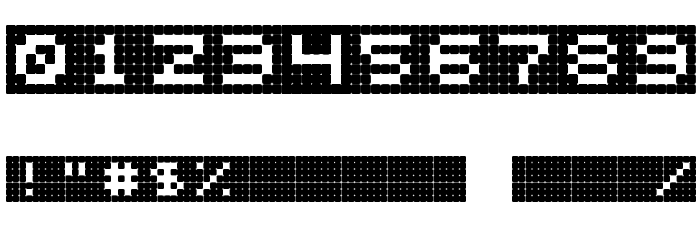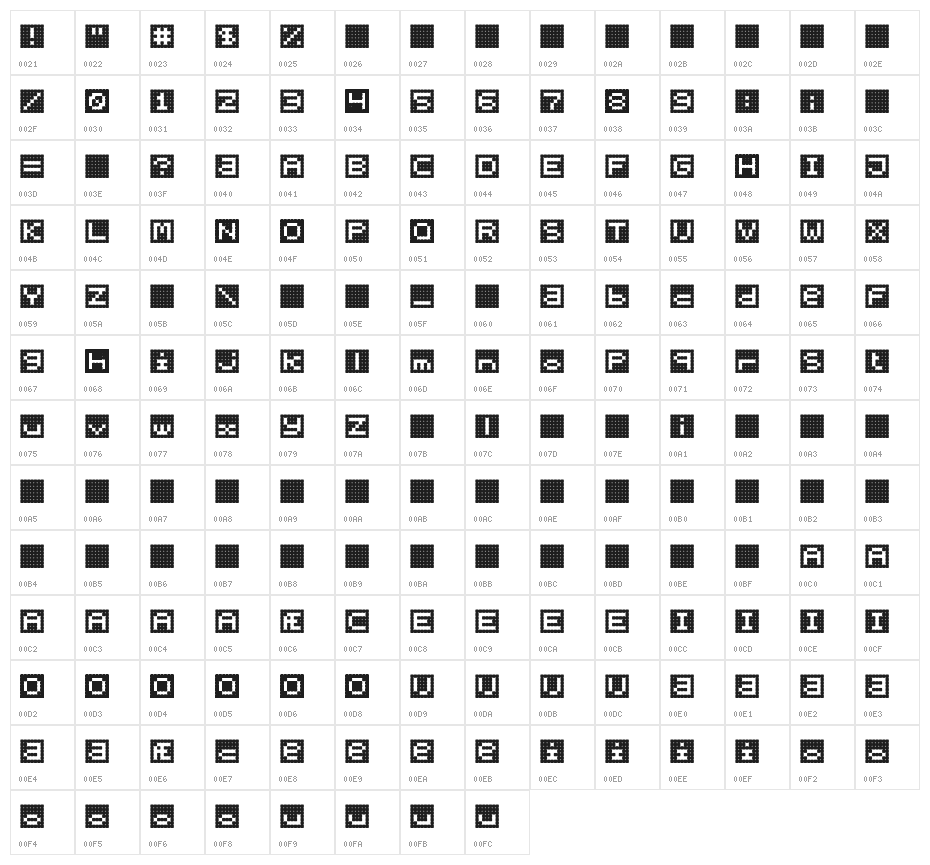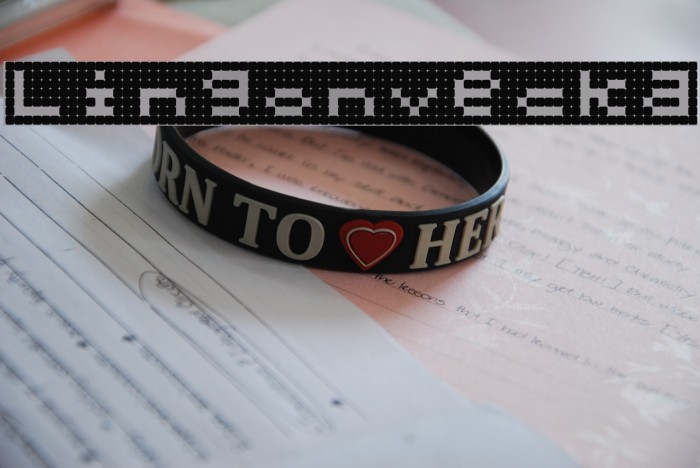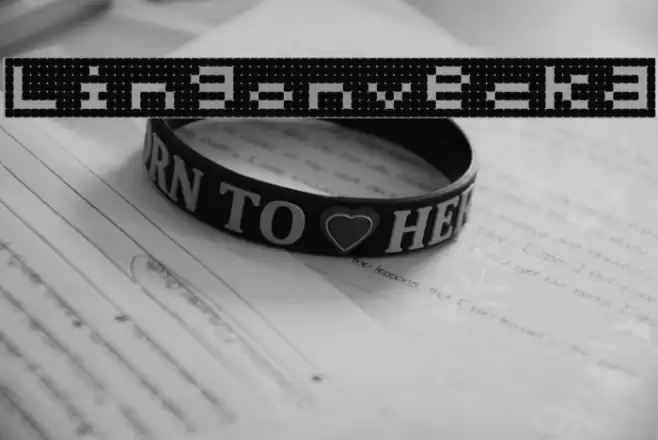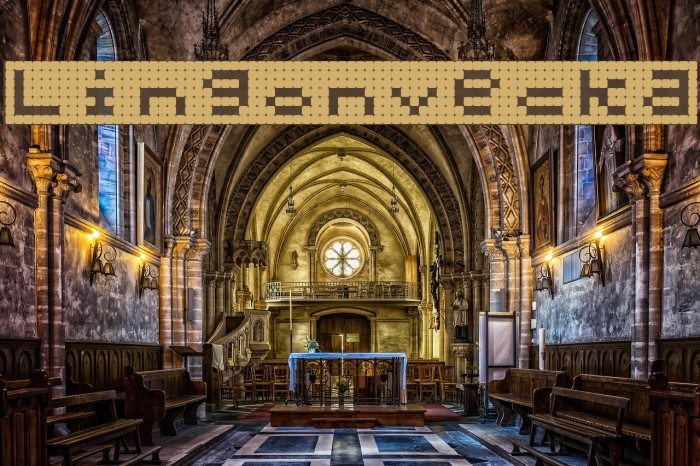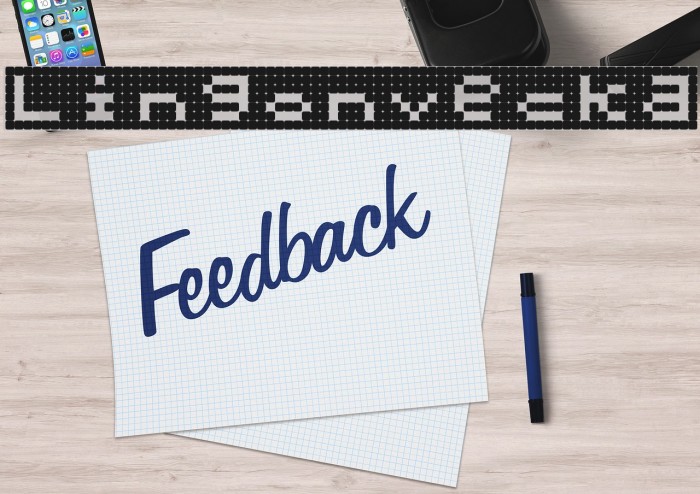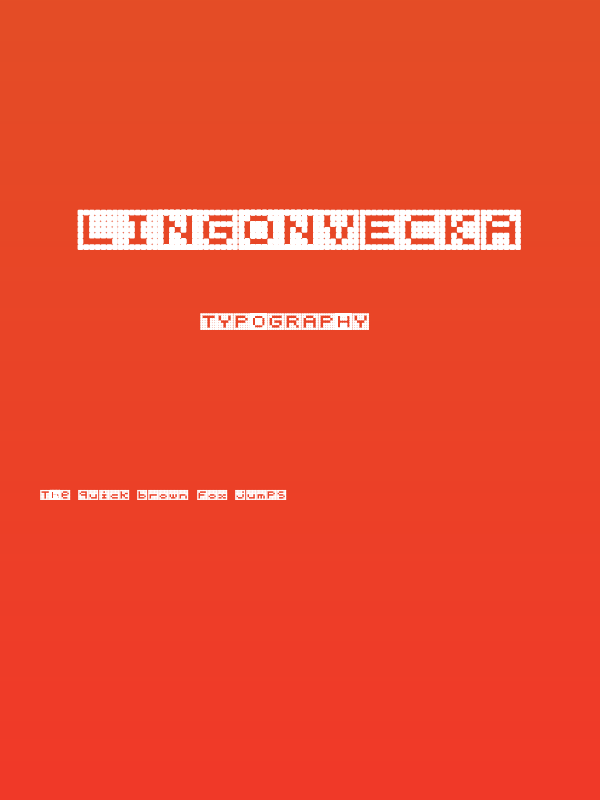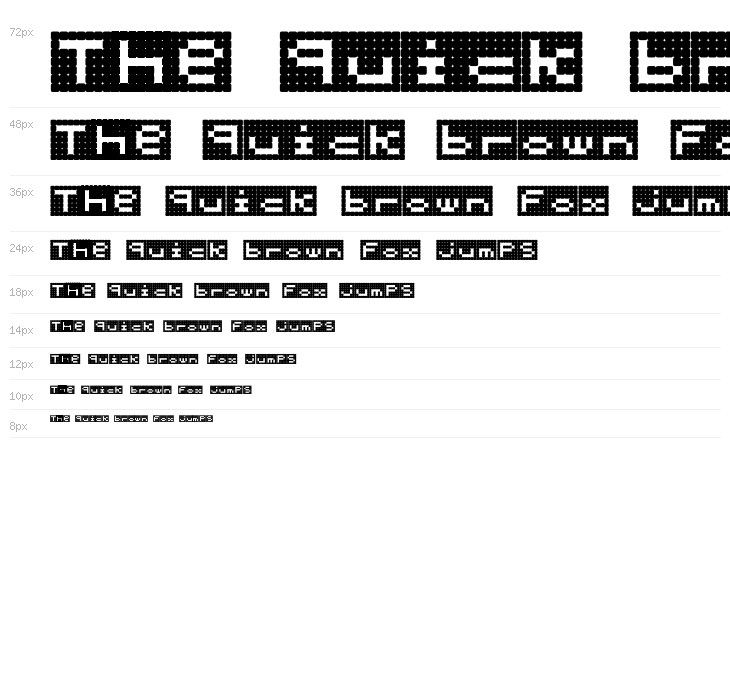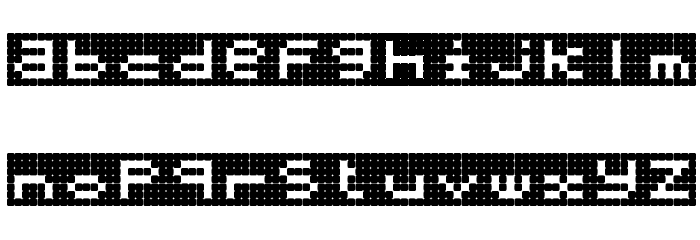
Lingonvecka Font
Lingonvecka Description
This font features a unique dot matrix design, where each character is constructed from a grid of small, evenly spaced dots. The style is reminiscent of digital displays or LED screens, giving it a modern and technological feel. The characters are bold and easily legible, with a consistent height and width across both uppercase and lowercase letters. Numbers and special characters follow the same dot pattern, ensuring uniformity throughout the typeface. The font's geometric precision and structured appearance make it ideal for digital interfaces or projects that require a futuristic aesthetic.
| Proposed Projects | Ideal for digital displays, tech-themed designs, video game interfaces, and futuristic branding. |